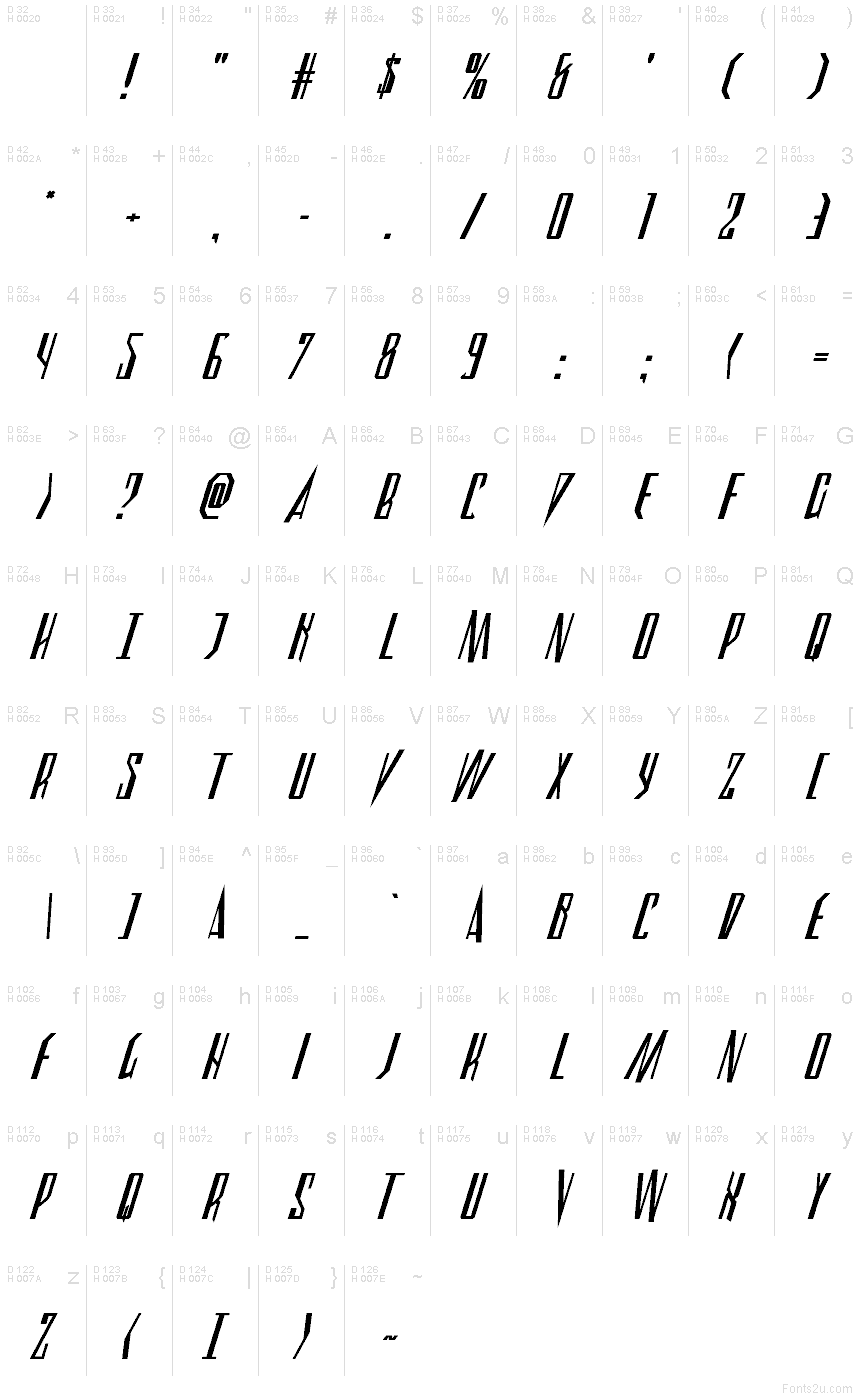
Archnemesis Super-Italic
Archnemesis Super-Italic font by Iconian Fonts is a free sci-fi display typeface that hits with pure, high-speed drama. Part of the Archnemesis family, its razor-edged strokes and extreme forward slant feel like text caught mid-sprint, cutting across the page with a sharp, metallic energy. Tight, towering letters pack together in a sleek, angular rhythm that instantly reads as action, danger, and futuristic attitude.
Using Archnemesis Super-Italic, titles snap into place for game splash screens, esports branding, comic covers, movie posters, YouTube thumbnails, and high-impact event flyers. This free font works best in large sizes where its slashing diagonals and compressed forms can dominate the layout. Pair it with a simple, neutral sans-serif for body text and let Archnemesis handle the loud, adrenaline-fueled headlines.